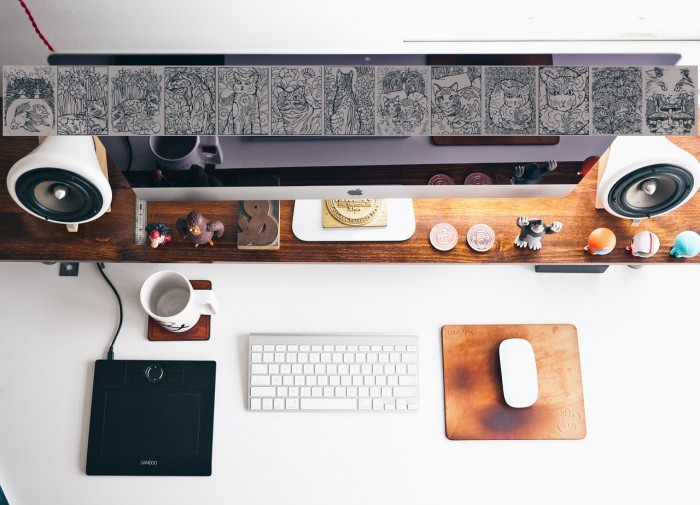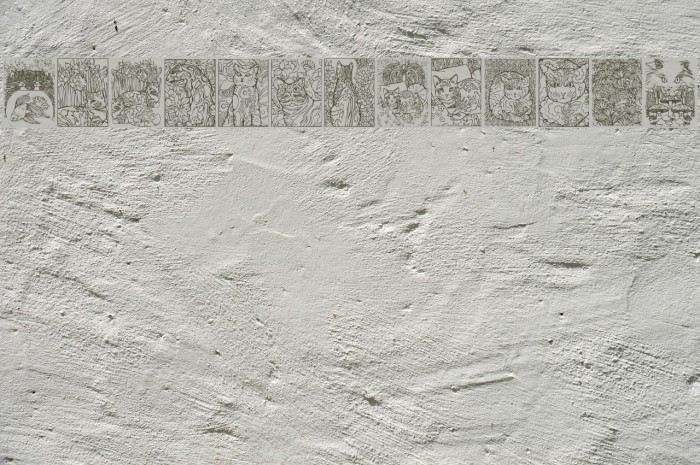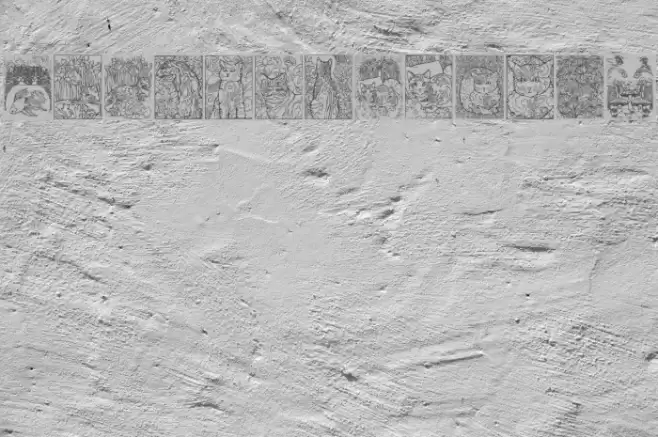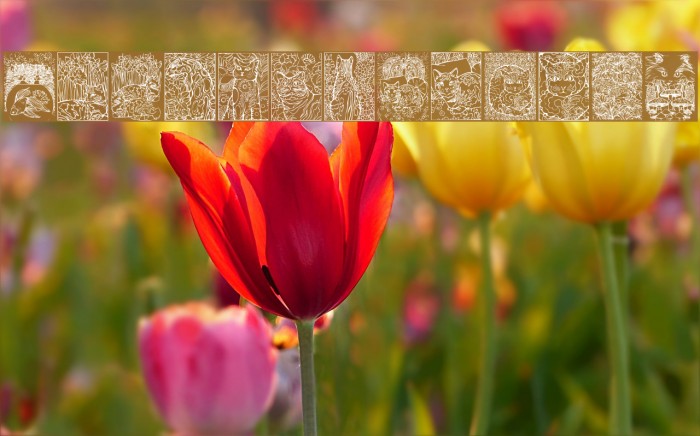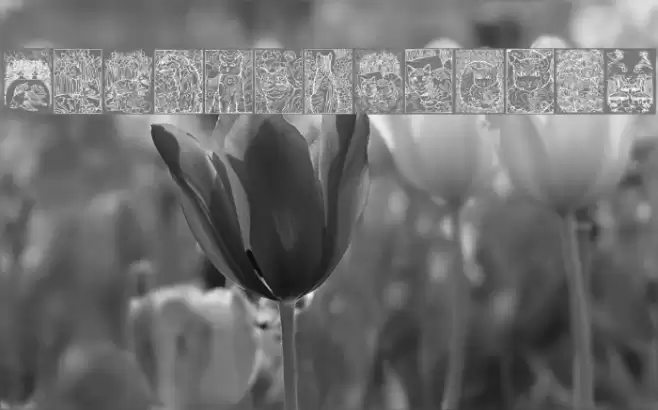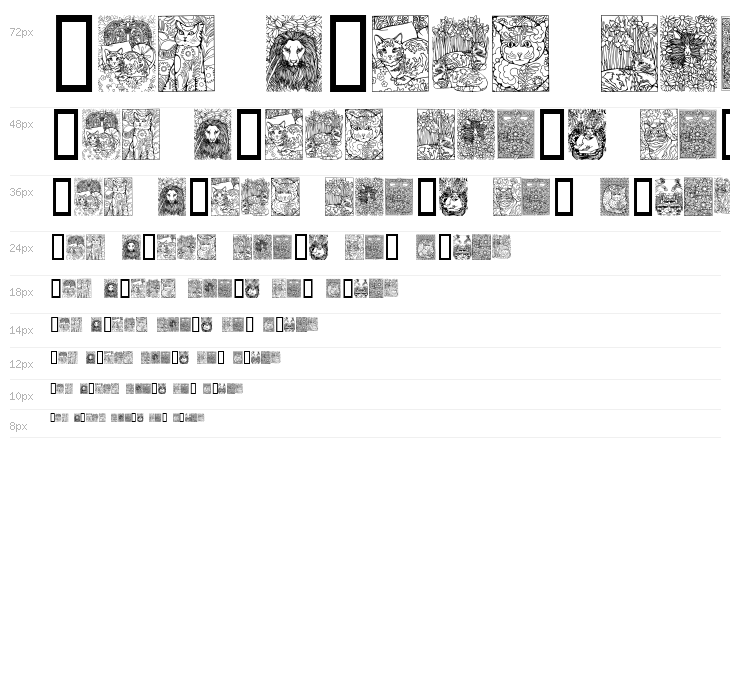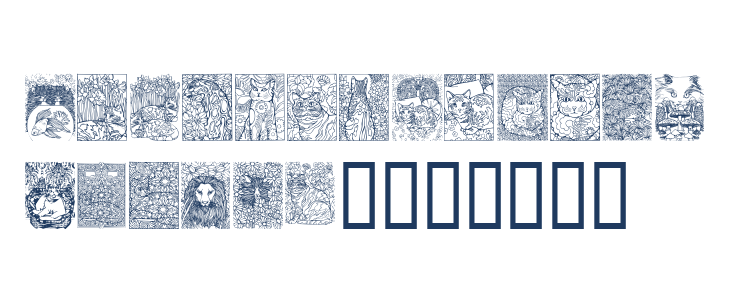
Cats Font
Cats Description
This is not a valid font sample. The image contains illustrated cat-themed artwork or coloring pages, not typographic characters.